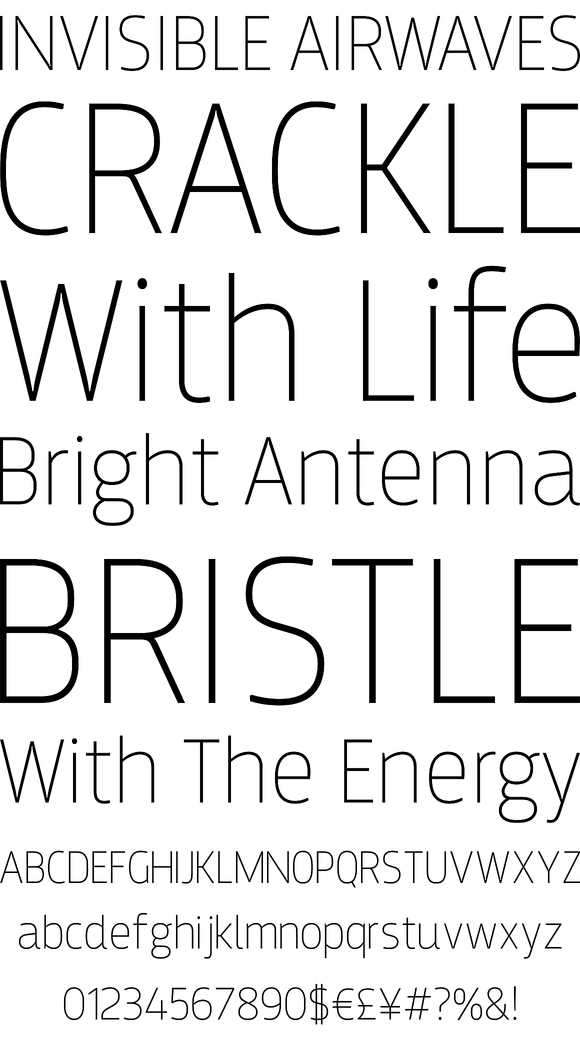
Breakers Font
Breakers is a sans serif originally conceived to be a display typeface. Works great in text also, but the diversity in weights is its strong point. It is easy to achieve that high contrast using thin against the ultra weight, but setting tall and lean capitals against the compact and heavy small caps can make really diverse compositions for all kinds of display design. With small caps included, and over 600 glyphs in each weight, it should prove itself useful in finding the right combination for any typographic setting.
Breakers has a character set to support Western and Central European languages, and an extended set for monetary symbols. Each weight includes small caps, ligatures, proportional lining and old-style numbers, tabular figures, fractions and scientific superior/inferior figures.